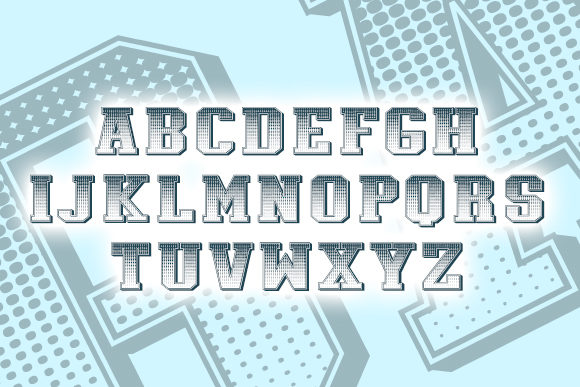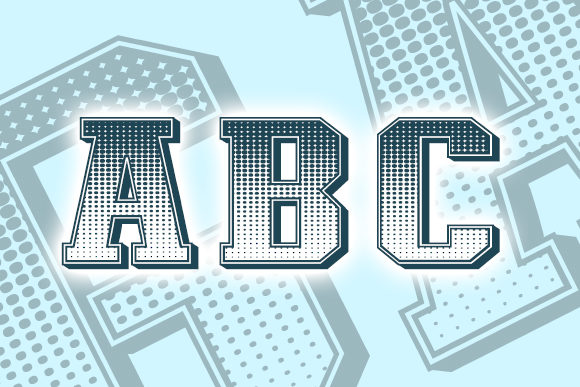
Athletica Font: The Bold and Chunky Display Font to Elevate Your Creative Projects
Are you tired of using the same old fonts in your creative projects? Do you want to make a statement and grab the attention of your audience? Look no further than the Athletica font, a bold and chunky lettered display font that is sure to take your designs to the next level. In this article, we’ll explore the features and benefits of Athletica, and show you how to use it to make your creative ideas stand out.
What is Athletica Font?
Athletica is a bold and chunky lettered display font that is designed to make a statement. With its thick lines and rugged texture, it’s perfect for creating eye-catching headlines, titles, and captions. Whether you’re a designer, crafty DIY enthusiast, or social media influencer, Athletica is the perfect font to add to your creative arsenal.
Key Features of Athletica Font
- Bold and Chunky Design: Athletica’s bold and chunky design makes it perfect for creating eye-catching headlines and titles.
- High-Quality Letters: The font features high-quality letters with a rugged texture that gives it a unique and distinctive look.
- Easy to Read: Despite its bold design, Athletica is easy to read, even at smaller sizes.
- Versatile: Athletica can be used for a wide range of creative projects, from posters and flyers to social media graphics and website headers.
Benefits of Using Athletica Font
So why should you use Athletica font in your creative projects? Here are just a few benefits:
- Adds Impact: Athletica’s bold design adds impact and emphasis to your creative projects, making them more likely to grab the attention of your audience.
- Creates Contrast: The font’s chunky design creates contrast with other elements on the page, making it perfect for creating visual interest.
- Enhances Branding: Athletica can be used to create bold and eye-catching branding materials, such as logos and business cards.
How to Use Athletica Font
Using Athletica font is easy. Here are a few tips to get you started:
- Pair with Other Fonts: Pair Athletica with other fonts to create visual interest and contrast.
- Use for Headlines: Use Athletica for headlines and titles to add impact and emphasis.
- Experiment with Colors: Experiment with different colors to find the perfect combination for your creative project.
In conclusion, Athletica font is a bold and chunky lettered display font that is perfect for designers, crafty DIY enthusiasts, and social media influencers. With its thick lines and rugged texture, it’s sure to make your creative projects stand out. Whether you’re looking to add impact, create contrast, or enhance your branding, Athletica is the perfect font to add to your creative arsenal. So why wait? Download Athletica today and take your creative projects to the next level!
- What is Athletica font?: Athletica is a bold and chunky lettered display font.
- What is Athletica font used for?: Athletica is perfect for creating eye-catching headlines, titles, and captions.